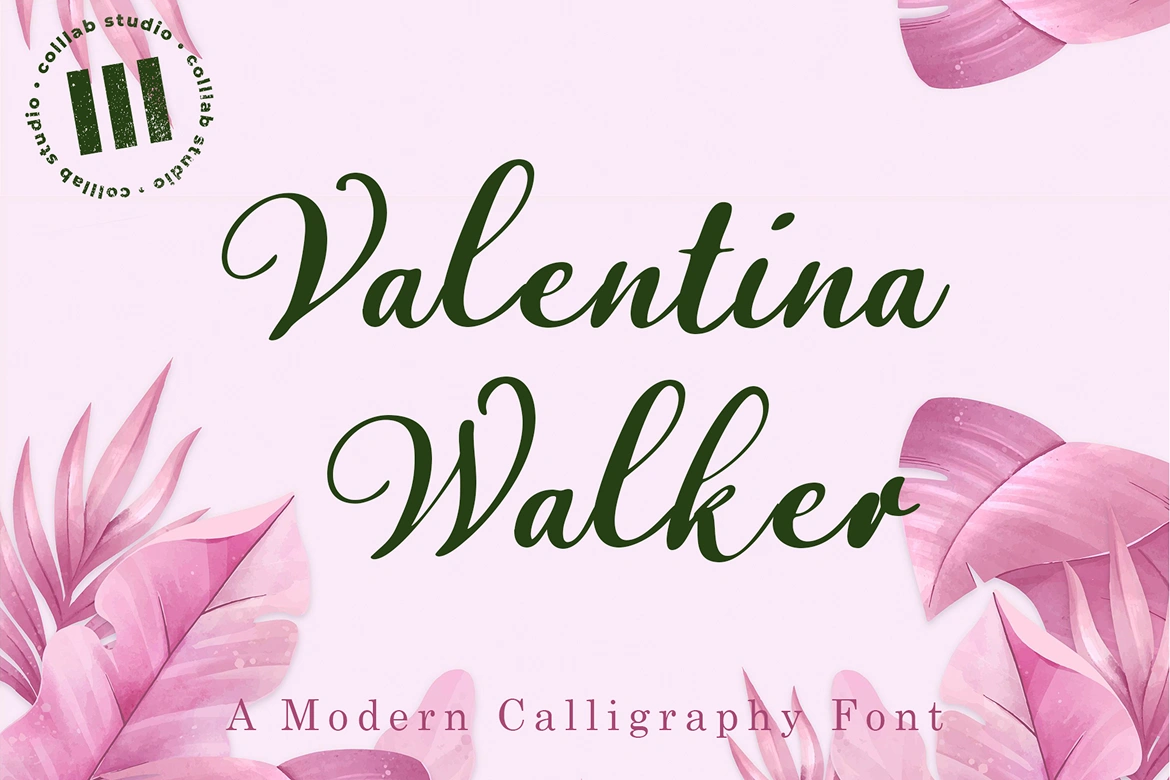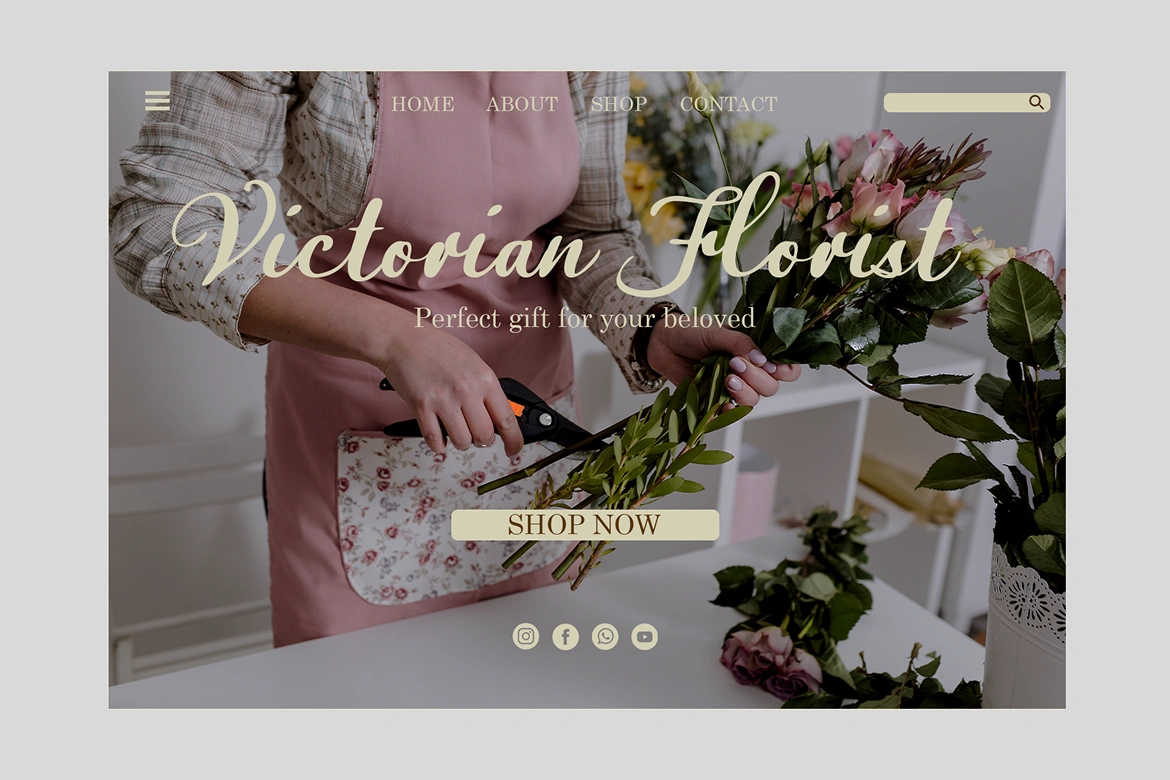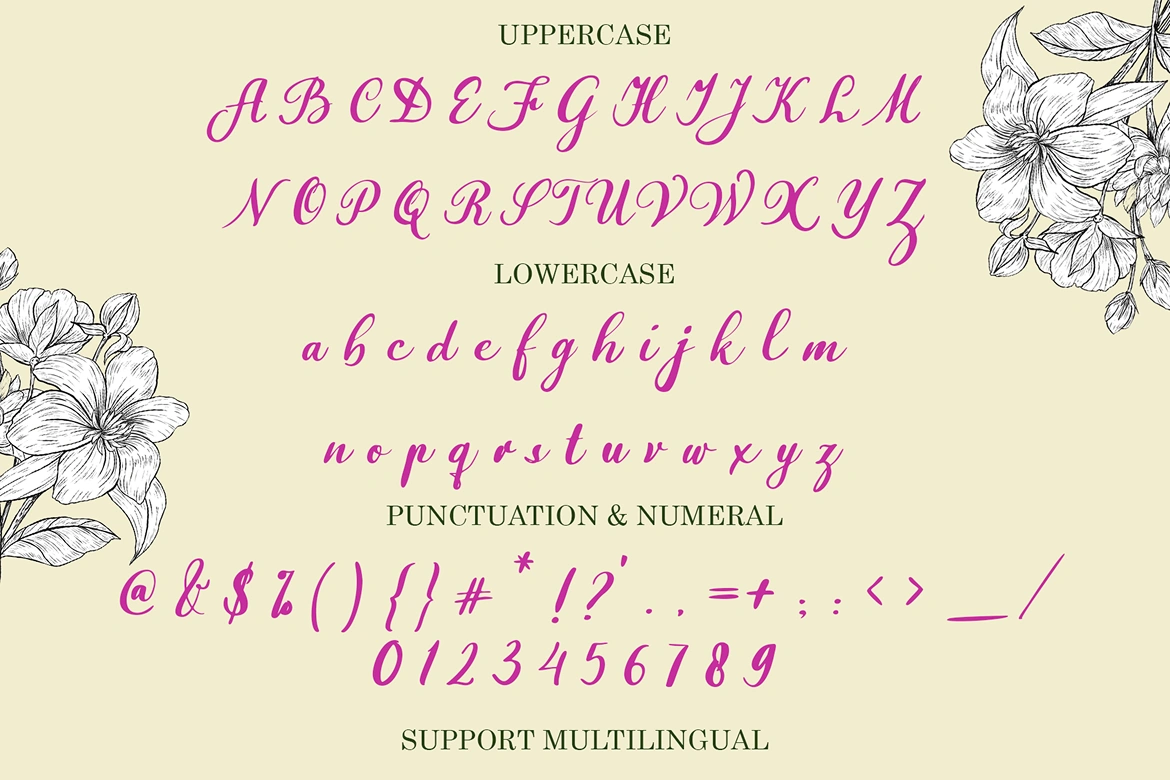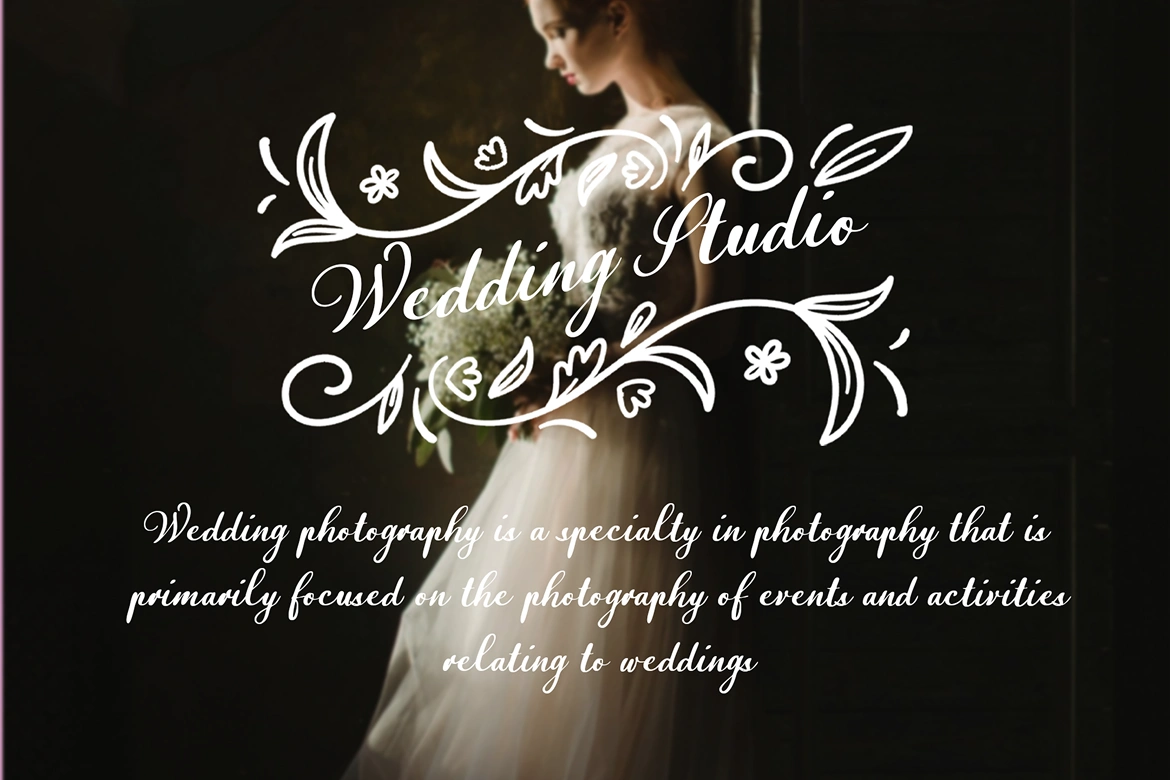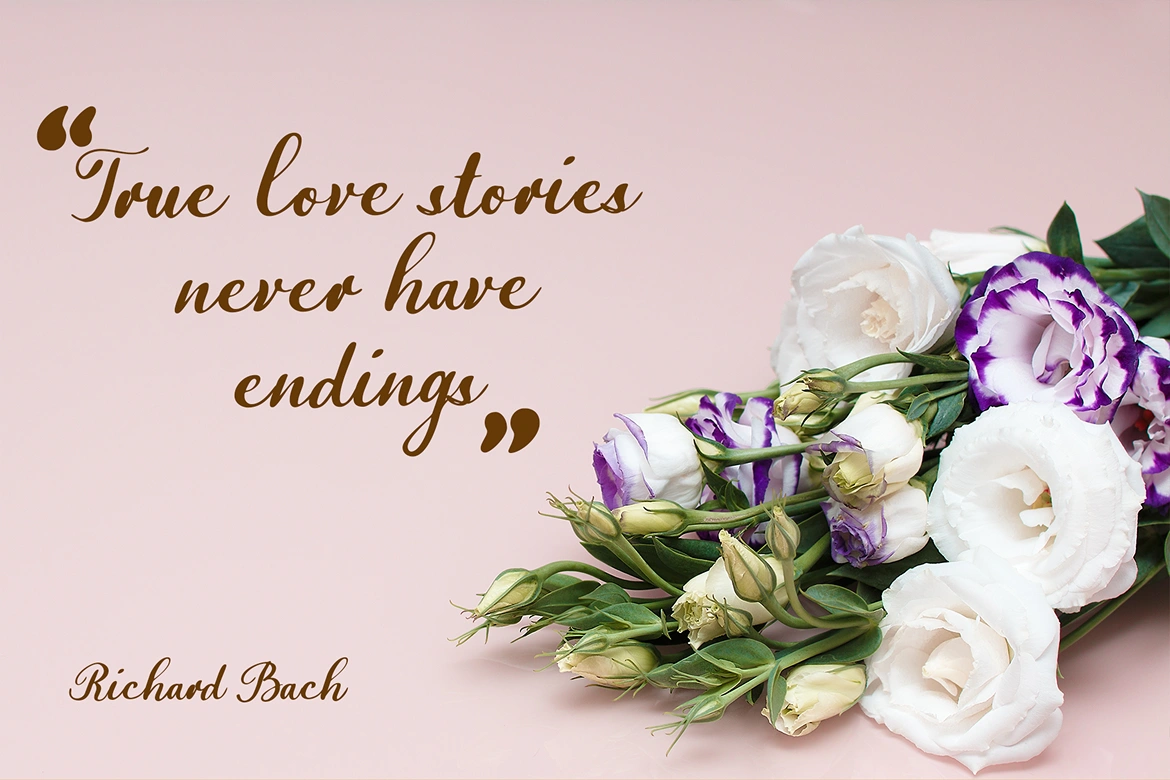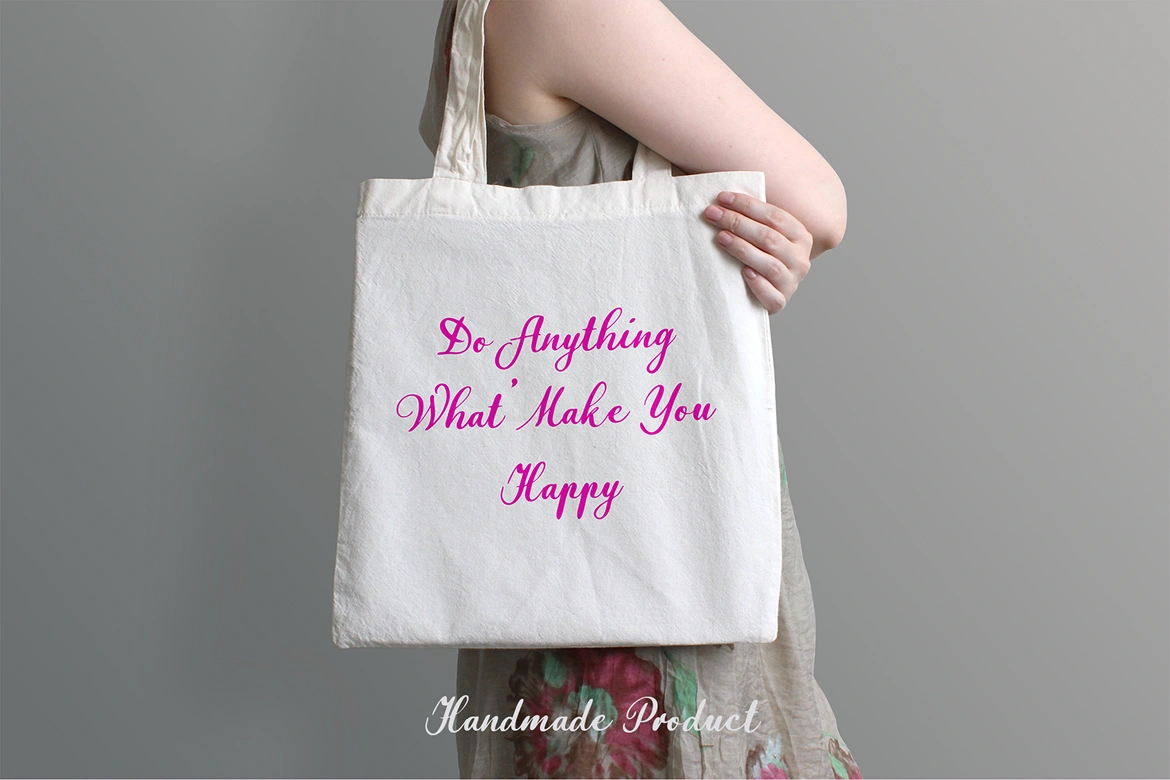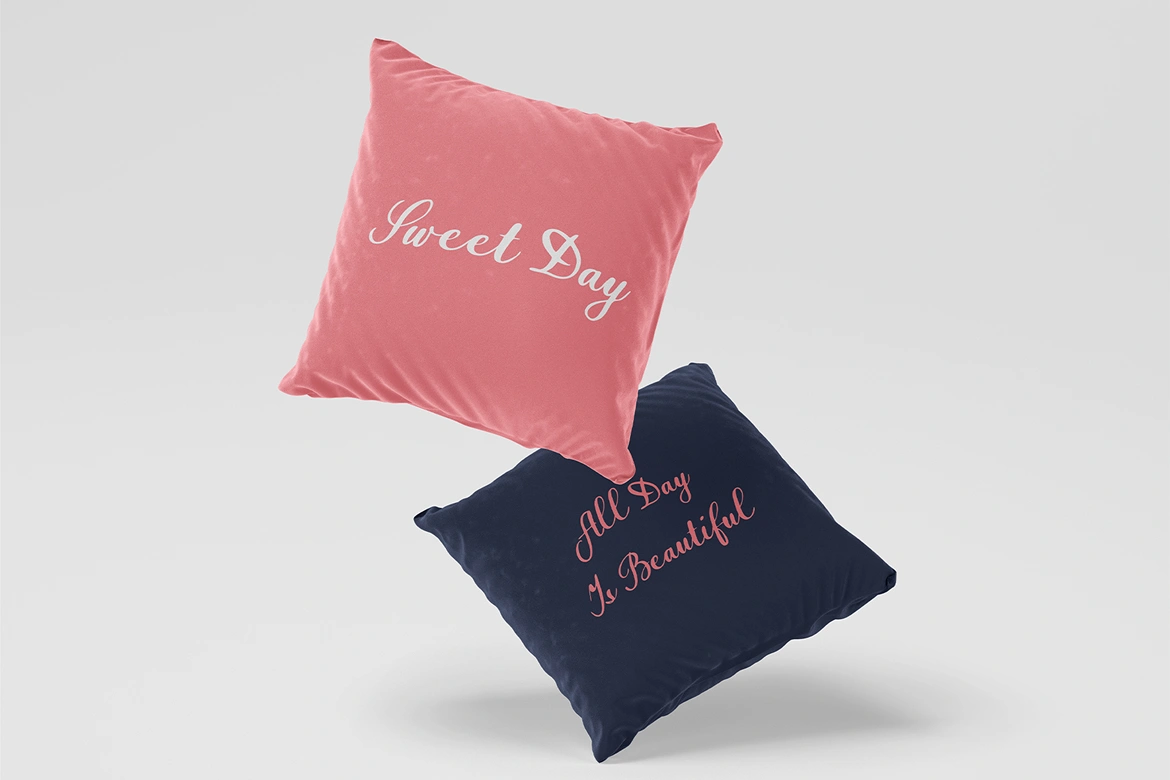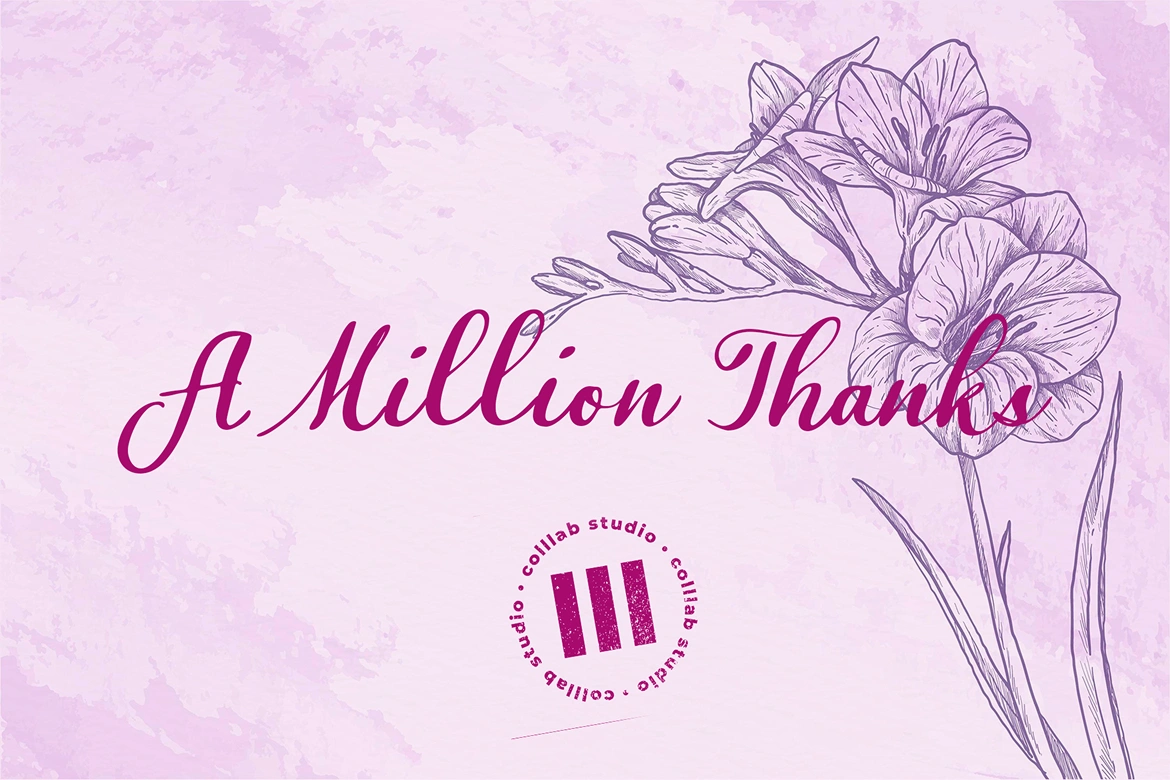
Valentina Walker is a modern calligraphy font crafted with elegance and charm. Its flowing handwritten style, delicate decorative strokes, and subtle irregular baseline create a romantic and timeless impression. Perfect for projects that need a touch of sophistication, this font adds beauty and personality to your designs.
Inspired by the grace of handwritten love letters and the timeless appeal of feminine calligraphy, Valentina Walker blends modern aesthetics with a classic handwritten flow. The font was designed to capture warmth and intimacy, making it a natural fit for heartfelt projects and creative branding.
Full uppercase & lowercase letters
Numbers and punctuation
Beautiful ligatures
Multilingual support